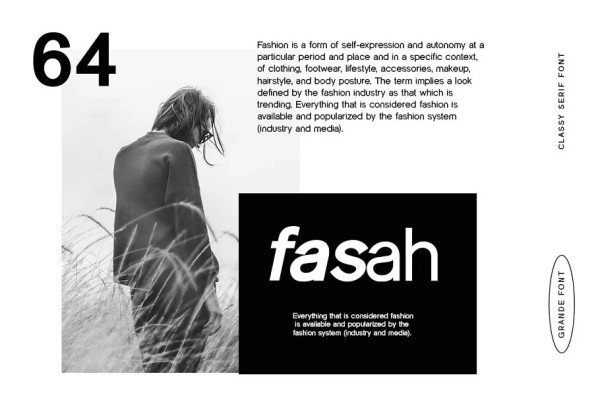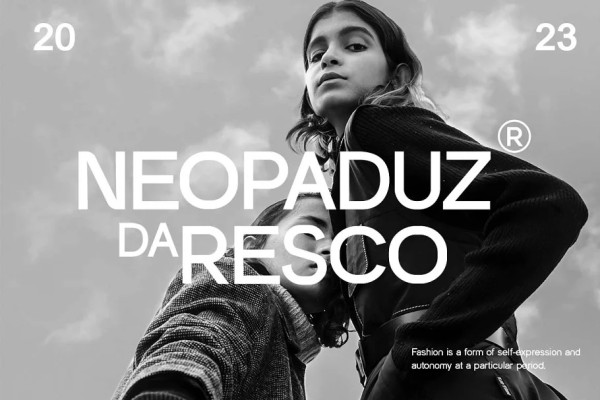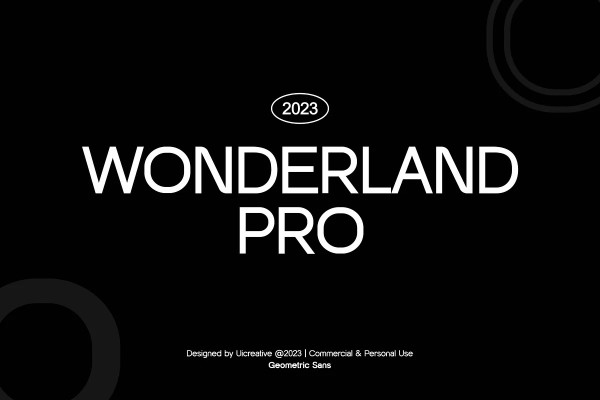
Wonderlandpro Font
Wonderlandpro Font – Modern Sans Serif font, bringing a beautiful feeling of luxury, elegance and modernity. This font is ideally suited for a variety of projects, such as signatures, stationery, logos, weddings, typography quotes, magazine or book covers, website headers, clothing, branding , packaging design, etc. Additionally, fashion-related branding or editorial design demonstrates both masculine and feminine qualities.